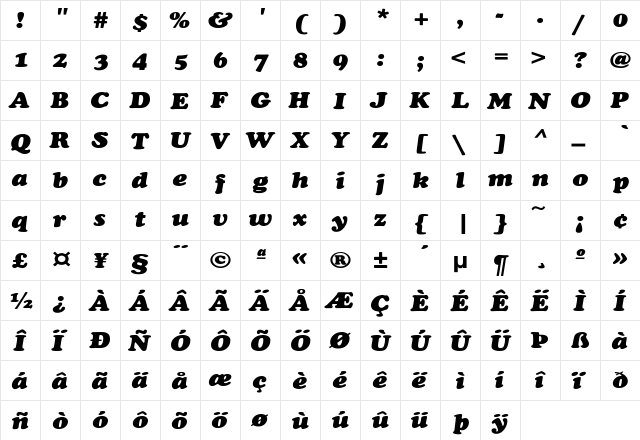
CooperExt-Heavy-Italic Regular
Design Context for CooperExt-Heavy-Italic Typeface
CooperExt-Heavy-Italic is a composed and adaptable typeface that performs quietly and consistently across a wide range of design contexts. The slanted form adds forward momentum and visual energy.